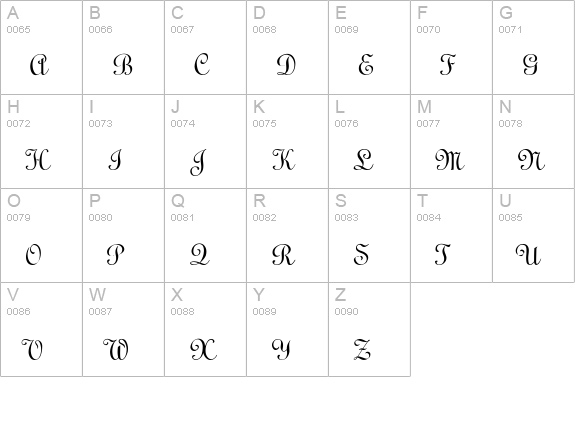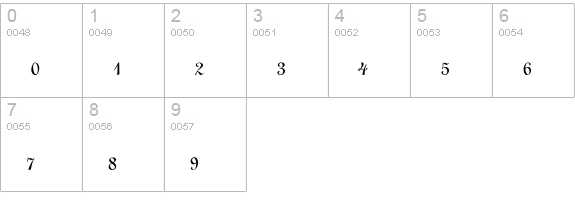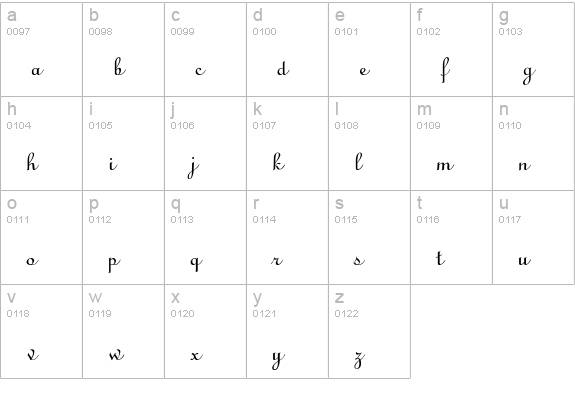
Siloscript-Light Font Details
Siloscript-Light is a refined, elegant variant in the Siloscript typeface family \xE2\x80\x94 well suited to elegant body text, refined sub-headings, and luxury branding.
Introducing Siloscript-Light, a captivating and versatile font that adds a touch of elegance and sophistication to any design project. This exquisite typeface embodies a harmonious blend of modernity and tradition, making it perfect for a wide range of applications. With its sleek and slender letterforms, Siloscript-Light exudes a sense of grace and refinement. Its thin strokes and delicate curves create a captivating rhythm that flows effortlessly across the page. Whether used in headlines, body text, or branding materials, this font commands attention and leaves a lasting impression. One of the standout features of Siloscript-Light is its remarkable legibility. Every character is meticulously crafted to ensure optimal clarity, even at smaller sizes. This makes it an ideal choice for web design, mobile applications, and print materials, ensuring that your message is conveyed effortlessly to your audience. But what truly sets Siloscript-Light apart is that it is available for free download at FontsMarket.com. Yes, you read that right! This stunning font can be yours without any cost. FontsMarket.com is renowned for offering a wide selection of high-quality fonts, and Siloscript-Light is no exception. Simply visit the website, find the font, and start elevating your designs with this beautiful typeface. Whether you're a professional designer, a student, or an enthusiast, Siloscript-Light is a must-have addition to your font collection. Its versatility and elegance make it perfect for a myriad of projects, from elegant invitations and stationary to modern branding and digital media. Embrace the beauty of Siloscript-Light and let your creativity soar to new heights.